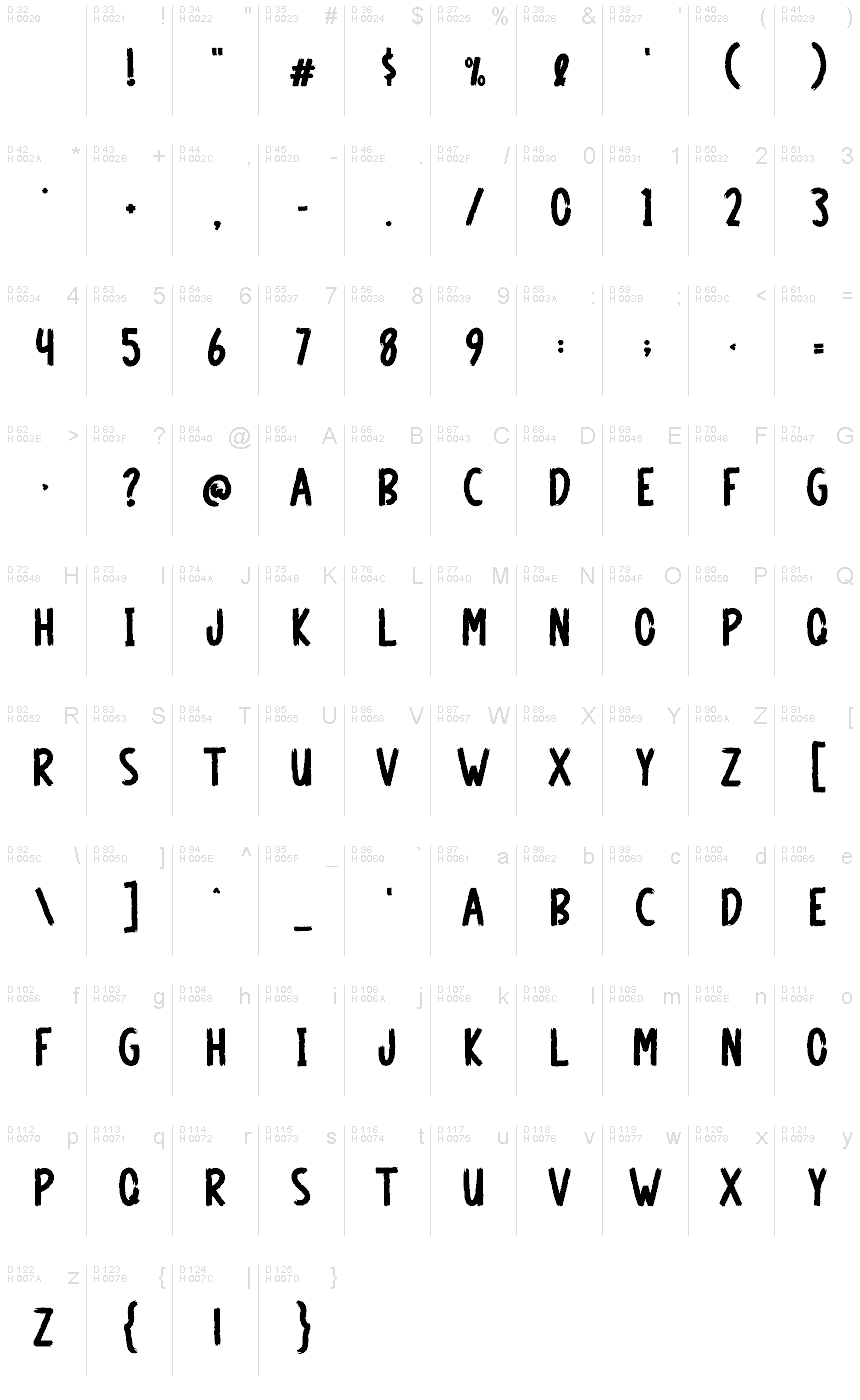
Ghostliness
Ghostliness font by Andi Moz is a free brush font that emanates a spooky and dramatic flair. Its condensed form consists of regular sized, slanted letters with thick, black, brush-stroke lines and choppy edges. The erratic texture of this display typeface gives it its unsettling atmosphere which makes it perfect for Halloween projects.
Let imagination take over as you utilize Ghostliness for posters, book titles and covers, flyers, banners, postcards, greeting cards etc. It can also be used for websites including blogs along with social media designs and even merchandise designs such as cups and t-shirts for all possible Halloween events.